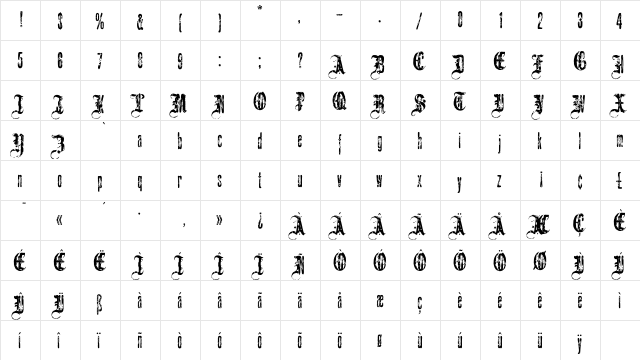
CarpediemEF Initials
Design Context for CarpediemEF Typeface
CarpediemEF is a composed and adaptable typeface that performs quietly and consistently across a wide range of design contexts.